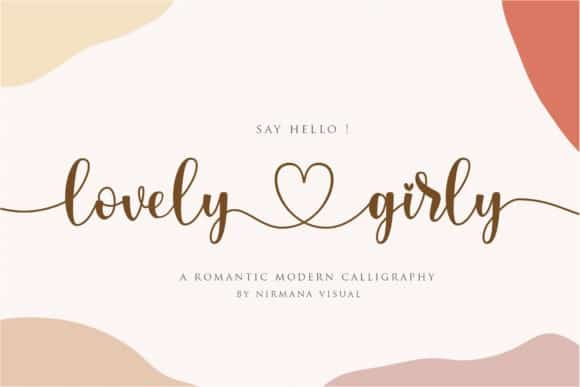
Lovely Girly Calligraphy Font
Lovely Girly Font is a modern calligraphy typeface, casual and pretty. Can be used for many purposes. such as title, signature, logo, wedding invitations, letterhead, signage, labels, newsletters, posters, badges, etc.
Lovely Girly features Open type, including the initial and terminal letters, alternates, ligatures and International support for most Western languages ​​included.